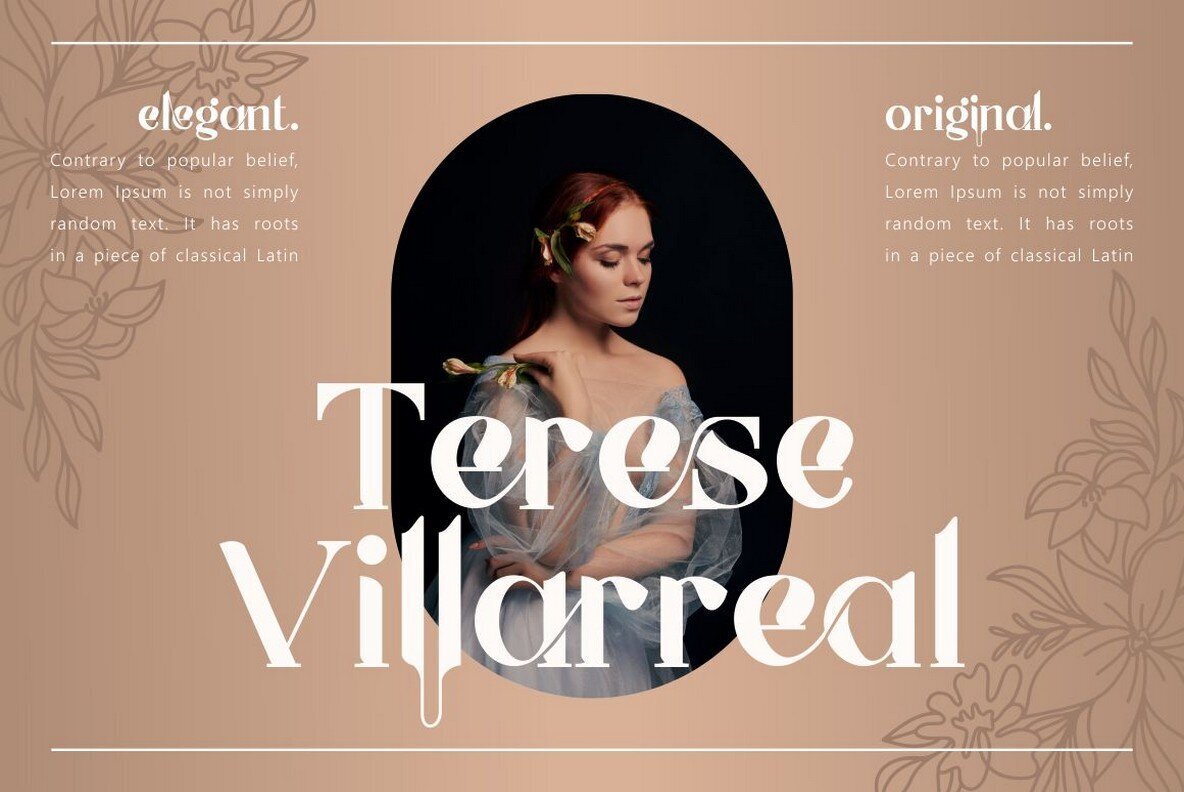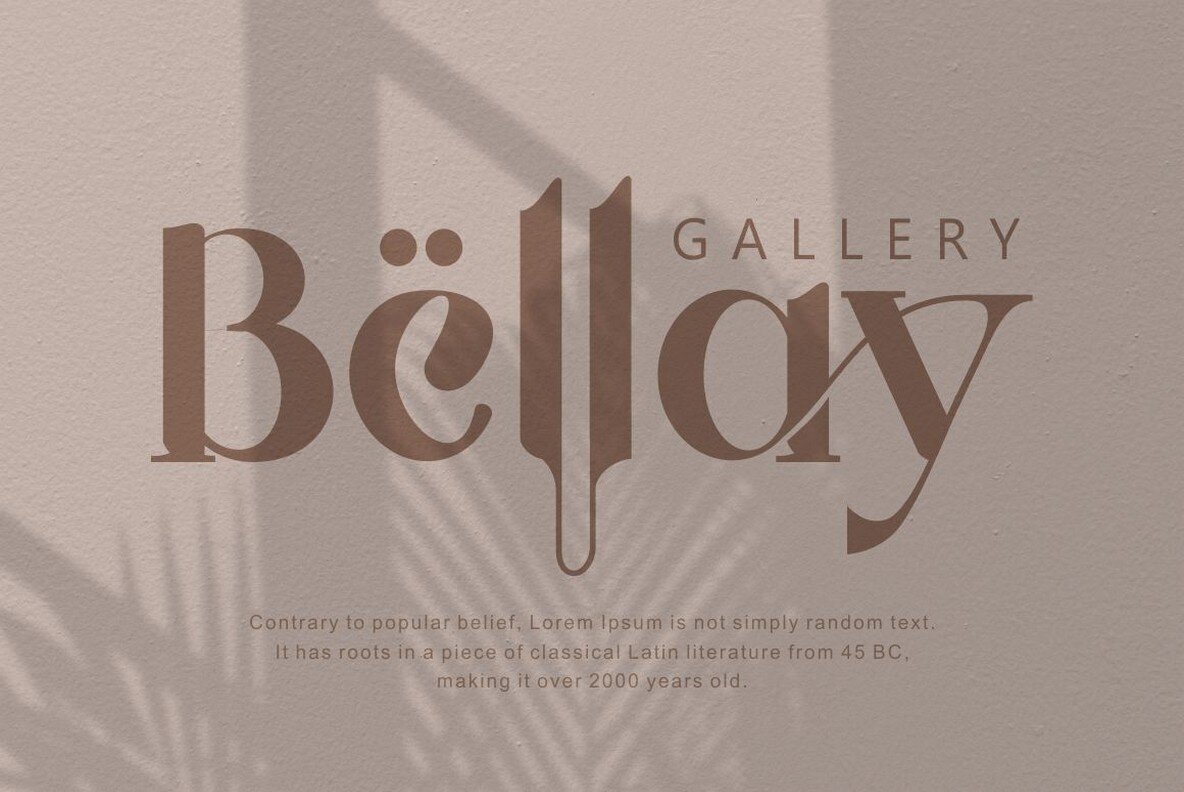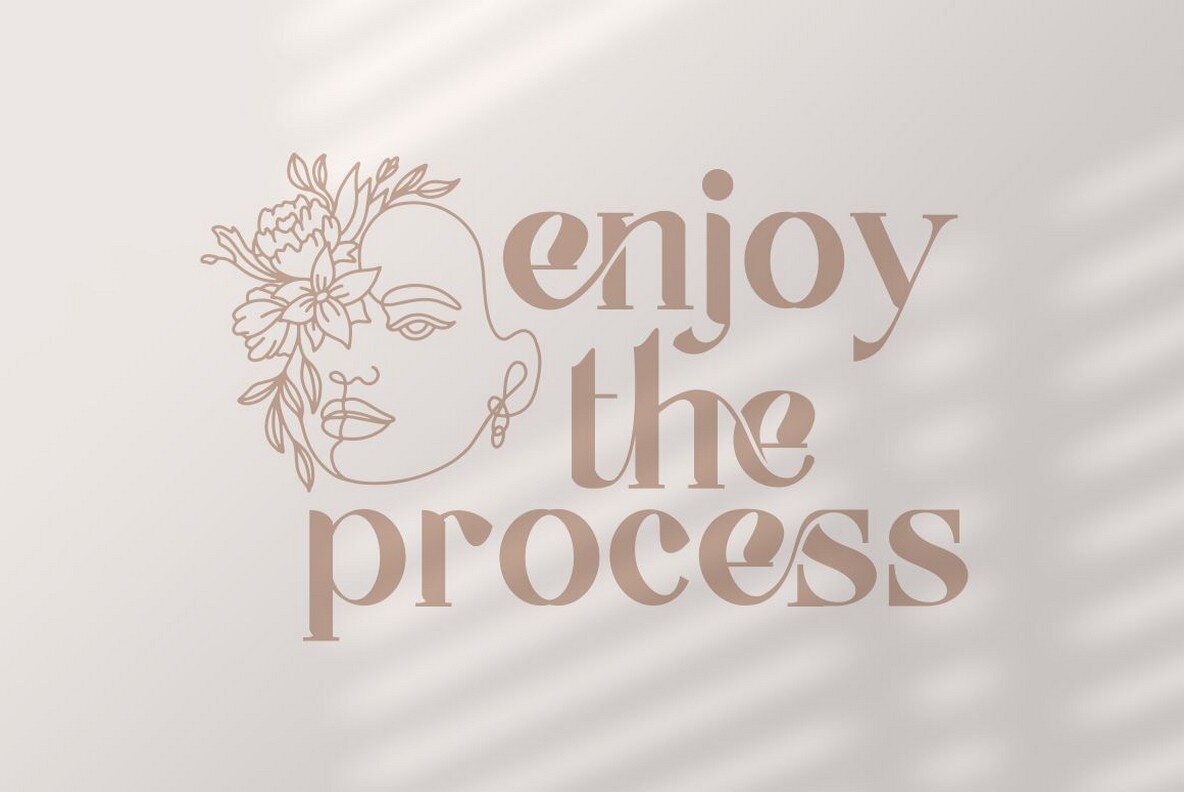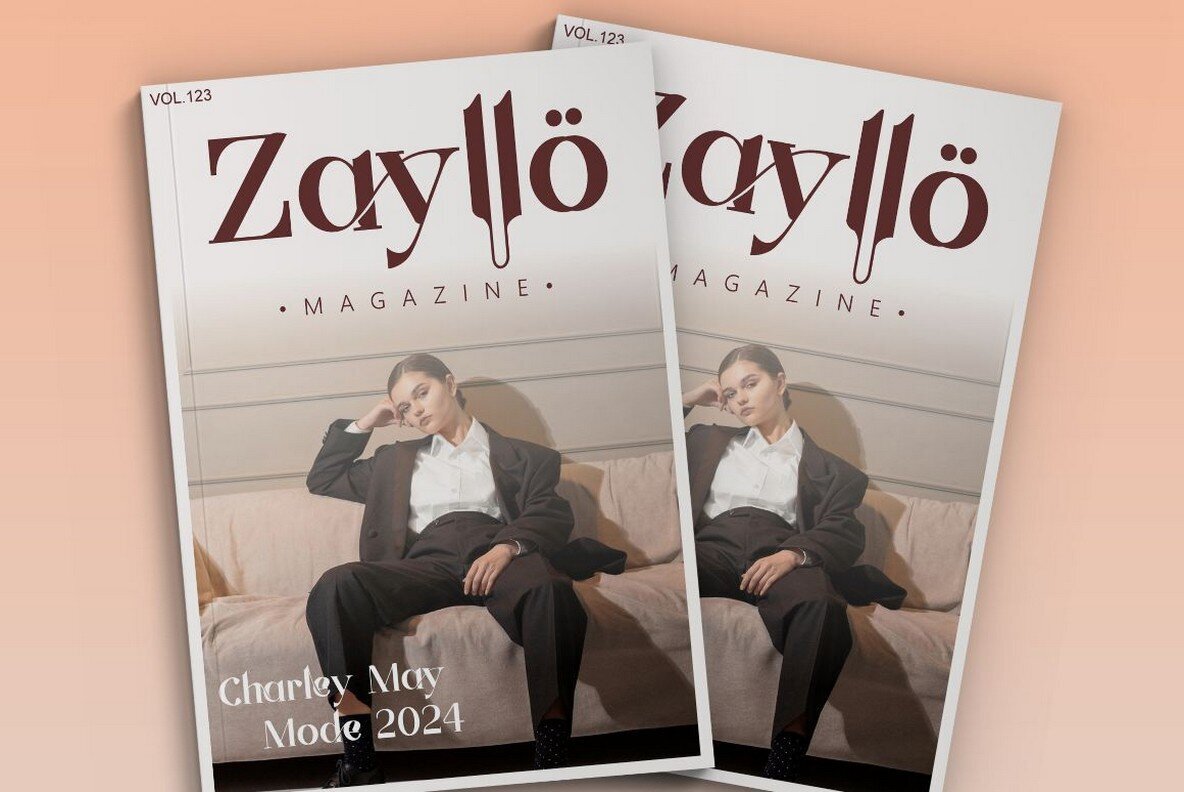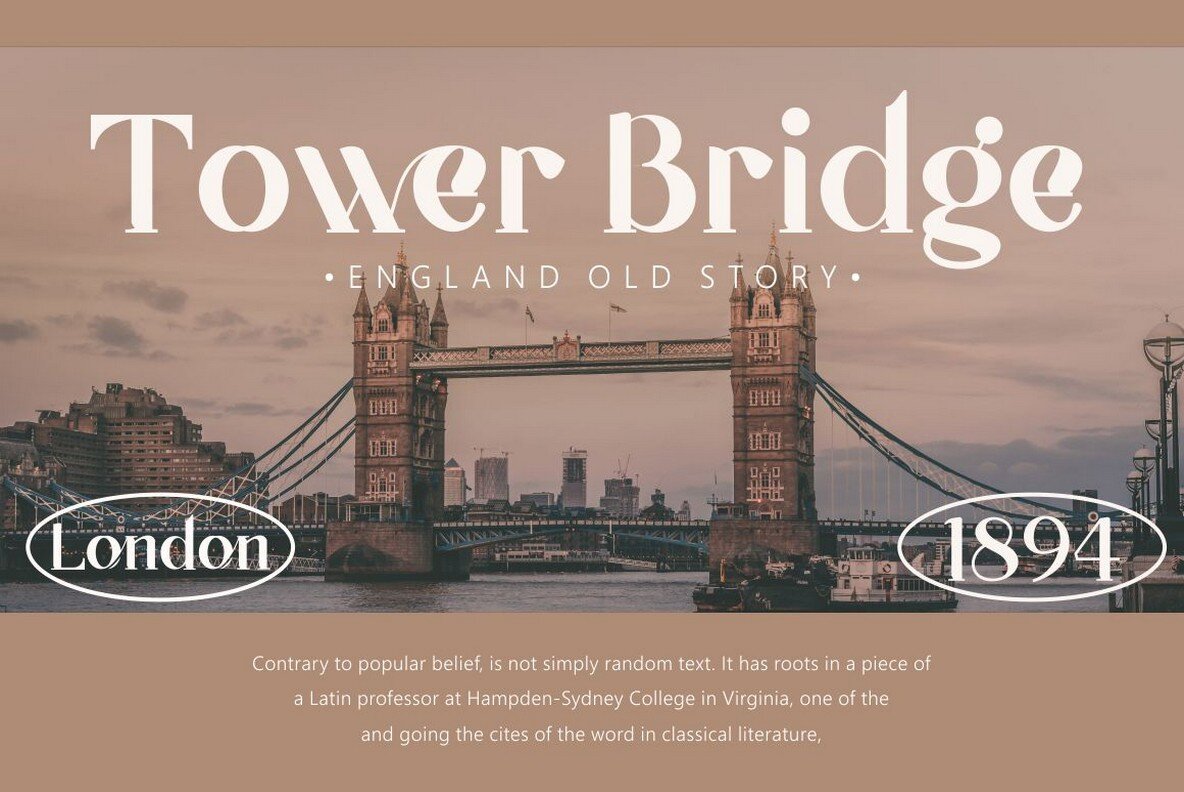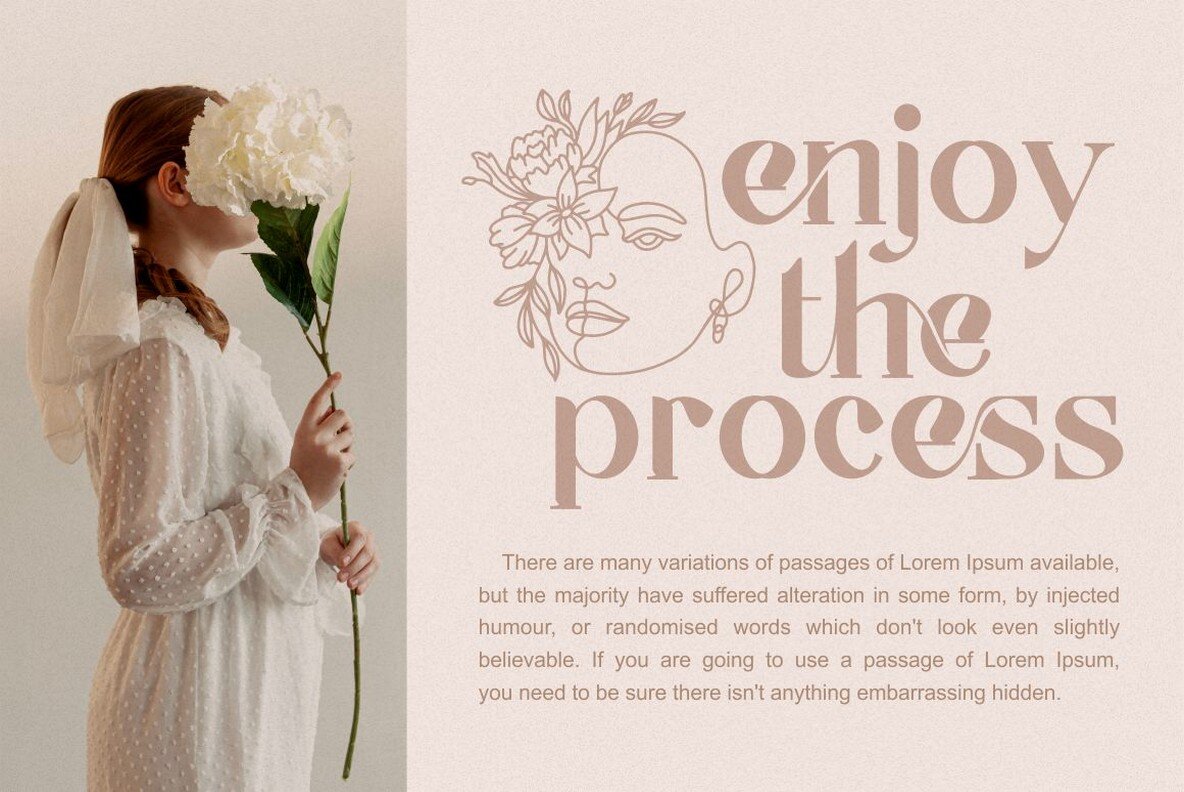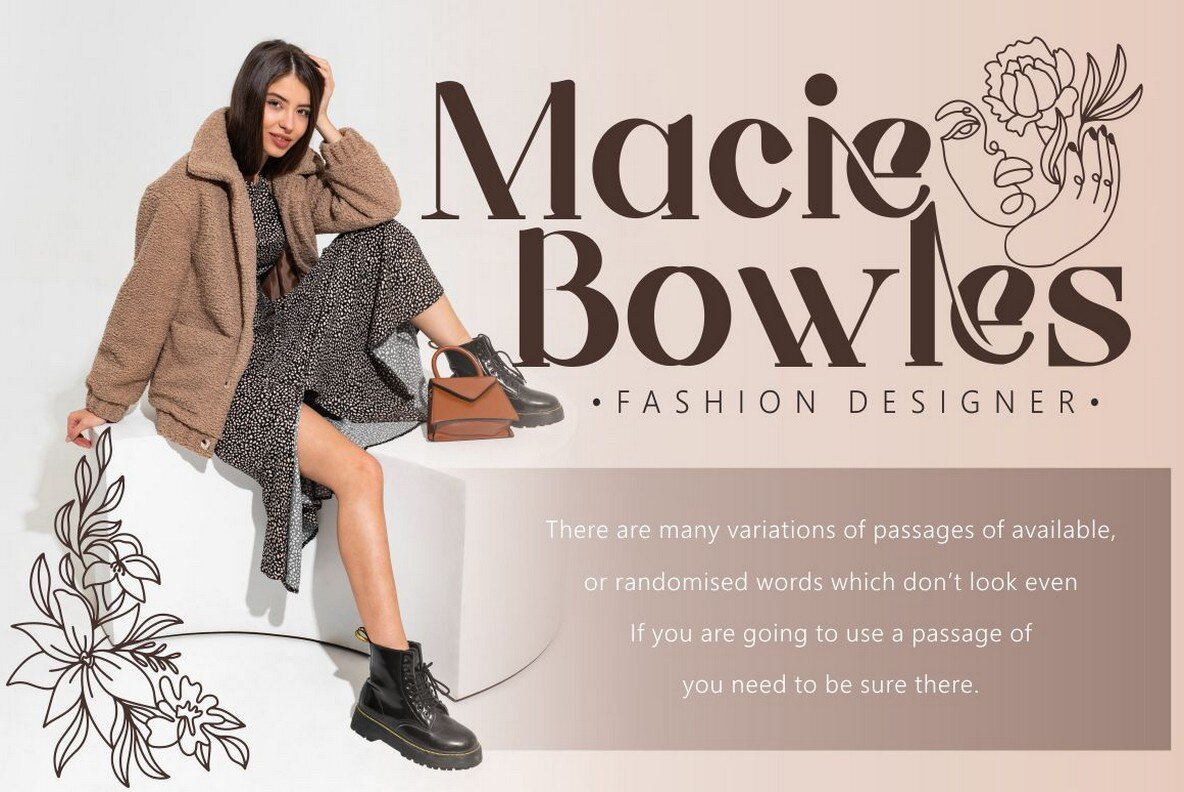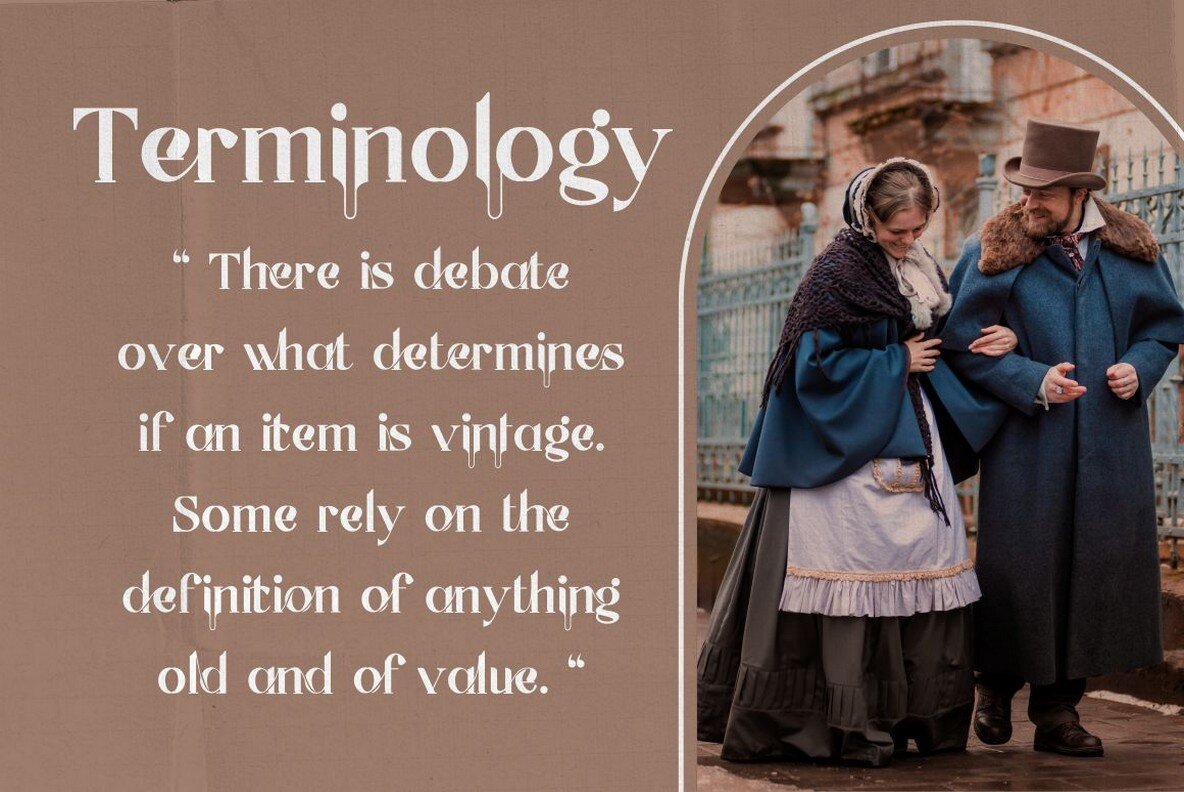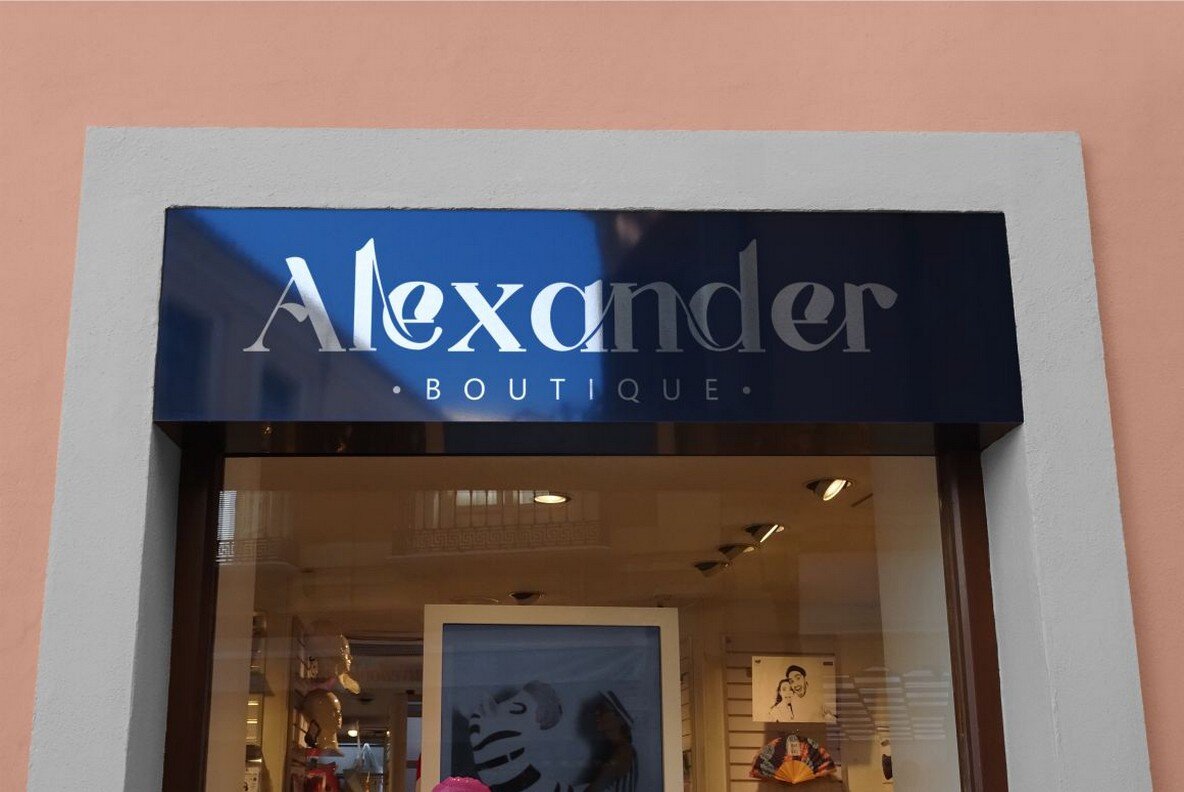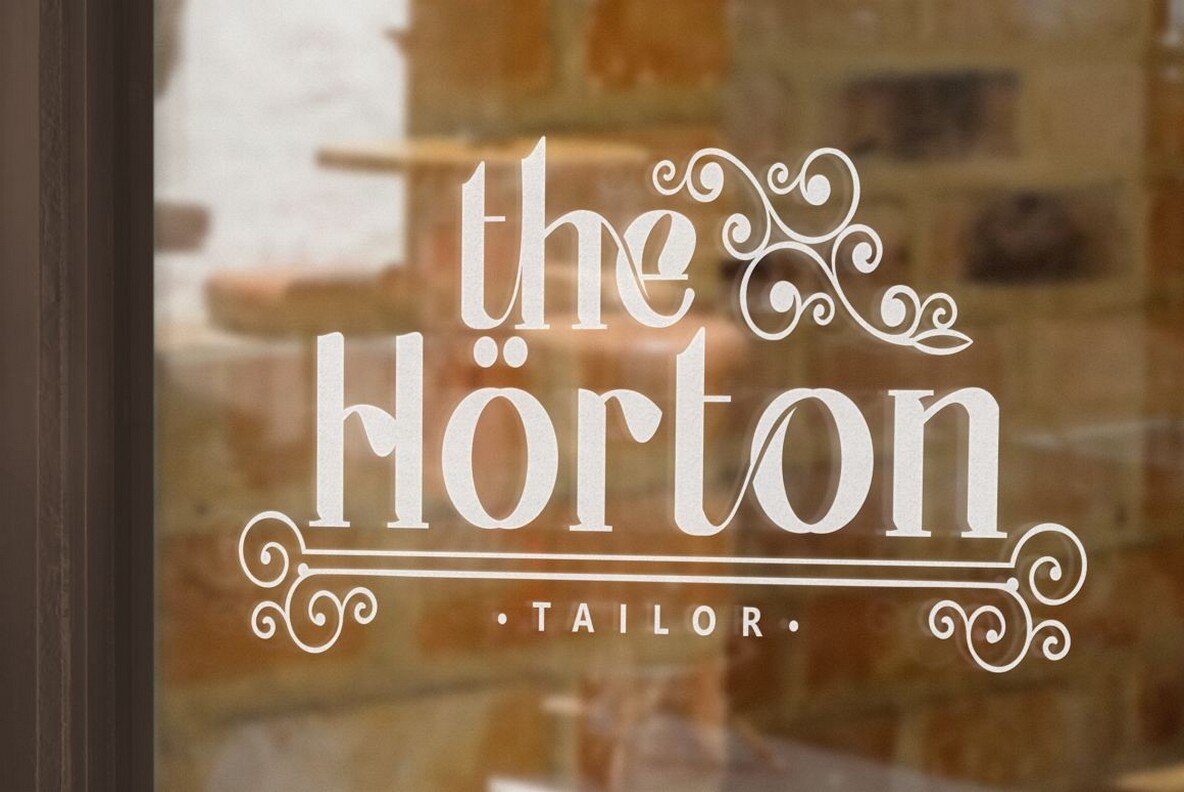
Chiralla Font
Chiralla
The Chiralla font exudes a touch of luxury and sophistication, drawing inspiration from modern typography. This elegant serif typeface is versatile, perfectly suited for a range of design projects. Chiralla enhances professional designs with its unique and graceful typography. Ideal for headings, flyers, greeting cards, product packaging, book covers, and more, this font offers endless creative possibilities.Chiralla: Elegant and Classy Serif Typeface